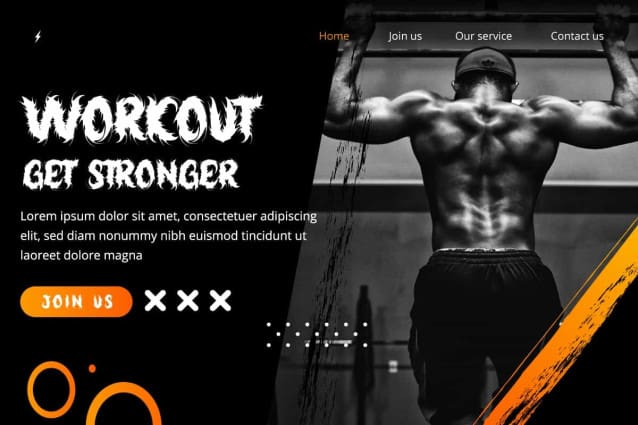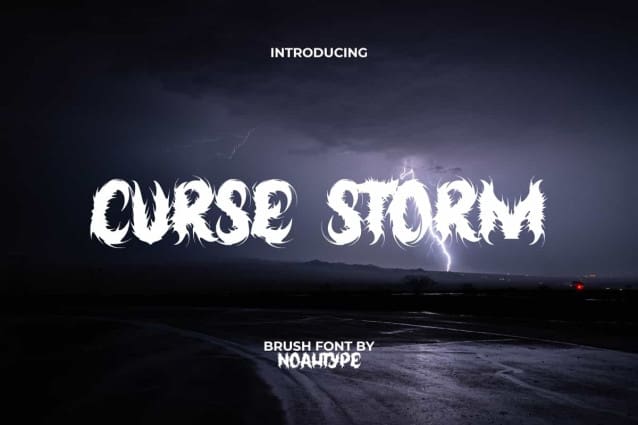
Curse Storm Font
Curse Storm Font is a black metal hard core display font with horror theme made with unique brush style. The characters in this font are created by fine brush strokes that can give a scary impression and make you shiver. It will be perfect for any designs, such as brand image, cover, custom design, invitation, label, marketing material, menu, poster, printing, product packaging, quotes, signage, stationery, t-shirt screen website, and many more!
Curse Storm Font includes full set of ALL CAPS for Uppercase and Lowercase Basic Characters, Numerals, Punctuation, and Symbol. The characters of this font will give amazing touch and also a perfect choice for many industries, such as accessories, advertising, art, café, clothing brand, event and festival, fashion, game, movie, printing, publishing, sports, etc.